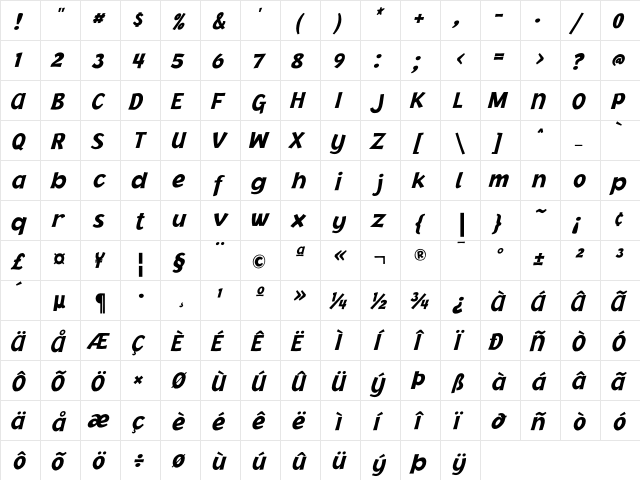
JacobyICG BlackItalic
Design Context for JacobyICG Typeface
JacobyICG is a composed and adaptable typeface that performs quietly and consistently across a wide range of design contexts. The slanted form adds forward momentum and visual energy.
Pro Tip: Try JacobyICG for annotation and caption copy alongside an upright companion — the contrast in angle creates a dynamic but ordered typographic system.